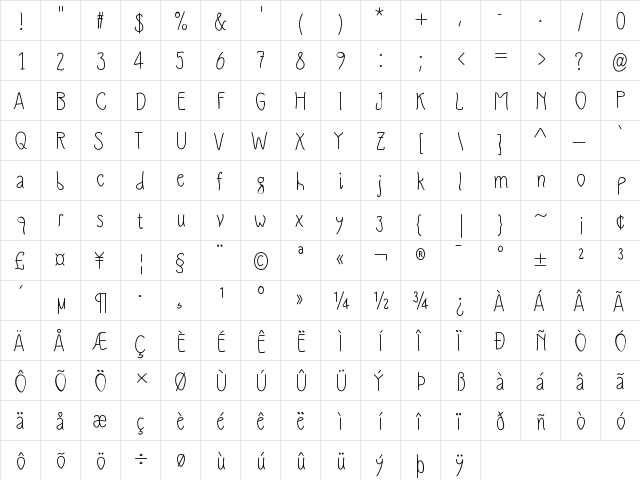
SlimamifMedium Medium
Design Context for SlimamifMedium Typeface
SlimamifMedium takes a measured approach to typography — its balanced proportions and neutral character make it a reliable workhorse for both digital and print work.